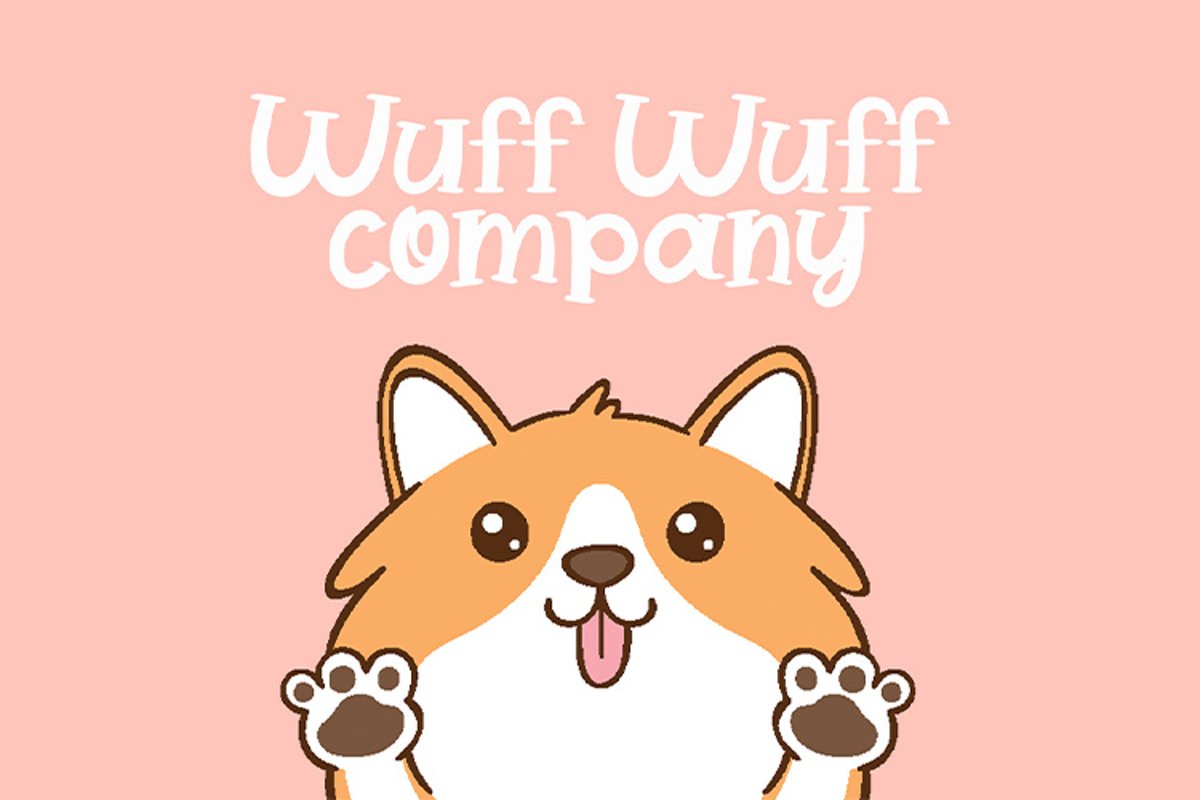
Pink Bird
Pink bird is funny font with alternate, 3 stylistic set for uppercase and 6 stylistic set for lowercase.Suitable for use animal logos, cute posters, children's books, cartoon and so on.